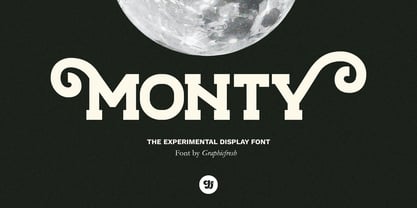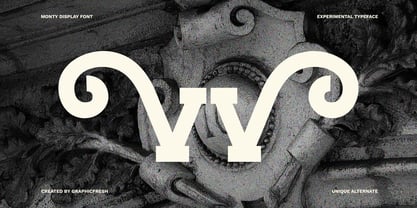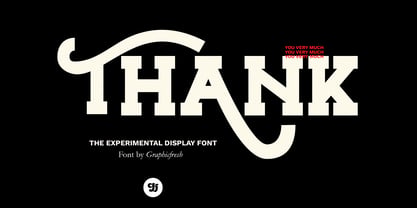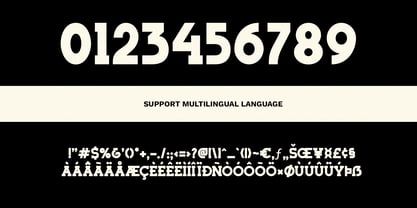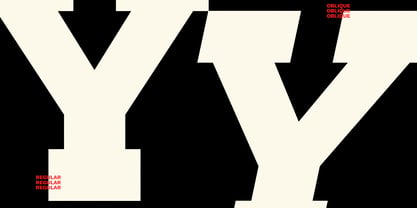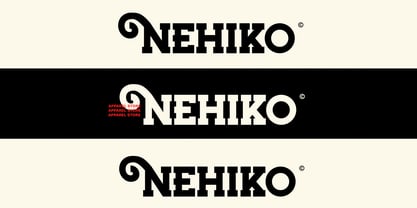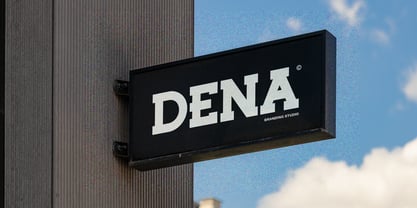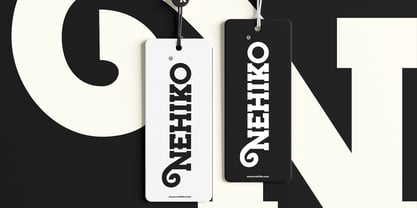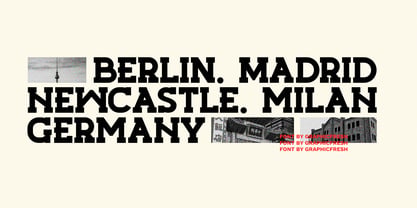
Monty
by Graphicfresh
The Monty Font Family was designed by Muhammad Husni Haikal and published by Graphicfresh. Monty contains 2 styles and family package options. More about this family
Monty is a bold experimental display font designed to bridge professional clarity and creative expression. With a modern structure and confident presence, Monty delivers strong visual impact while remaining clean and versatile. The font family includes Regular and Oblique styles, both available in Bold weight, giving designers flexibility for dynamic layouts and clear typographic hierarchy. Monty also features a set of alternates, allowing subtle experimentation or expressive customization depending on the project’s needs.
Designers: Muhammad Husni Haikal
Foundry: Graphicfresh